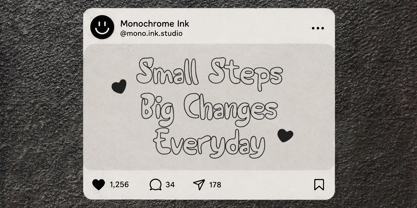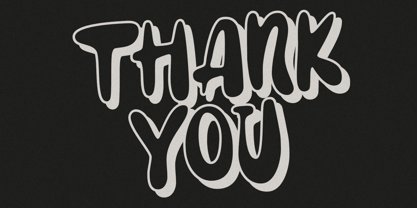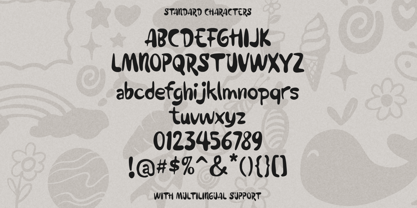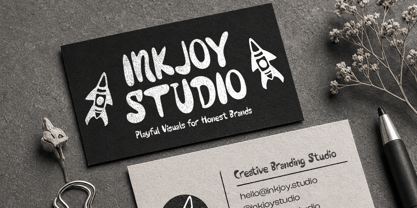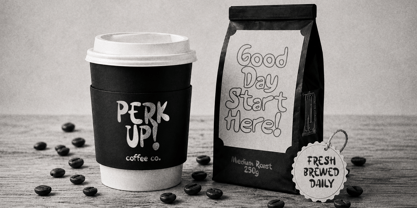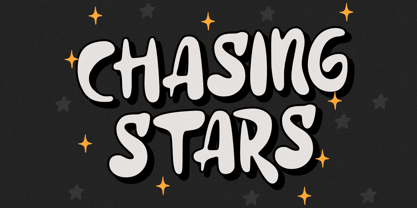
Wobble Ink
by Littlehand
The Wobble Ink Font Family was designed by Aryo Pamungkas and published by Littlehand. Wobble Ink contains 3 styles and family package options. More about this family
Wooble Ink is all about big smiles, messy doodles, and carefree creativity. With its chunky handwritten shapes and bouncy playful rhythm, this font feels friendly, and full of personality, it comes with multiple styles and doodle extras, making it perfect for kids projects, classroom materials, packaging, stickers, social media, and creative designs that want to feel cheerful, approachable, and full of happy energy.
Features :
• Uppercase & lowercase
• Numbers and punctuation
• Alternates or ligatures
• Multilingual support